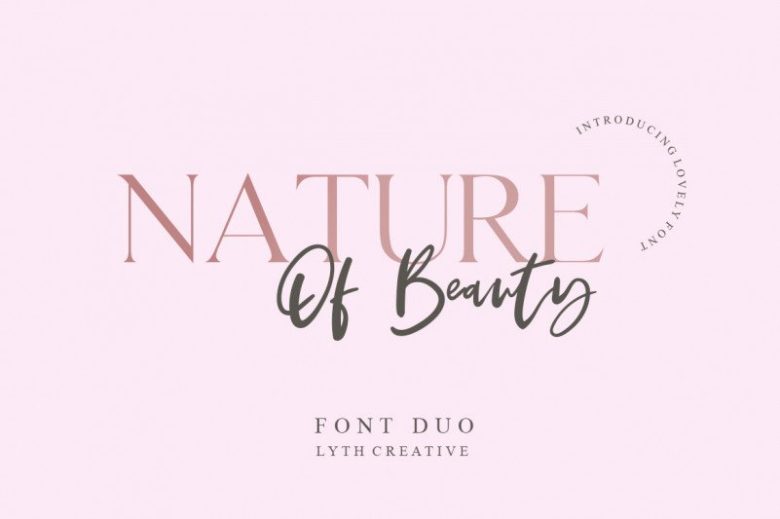
Nature of Beauty Font Duo
Hello Font Lovers! Get stylish with Distinct Style, a fashionable and contemporary pair of script & serif fonts designed to perfectly compliment one another. Introducing Nature of Beauty Font Duo. It is design and shared by lyanatha. It’s a sweet font duo with a contemporary touch. This elegant font pair will easily add a unique touch on any creative project! Offers beautiful contrasting typography for a diversity of design projects, including; logos & branding, packaging design, social media posts, advertisements & product designs.